I’ve specified Gotham on more projects than I can honestly count. Business cards, magazine layouts, a handful of branding decks that never made it past round two. So when Hoefler & Co. and Monotype announced Gotham Variable to mark the typeface’s 25th anniversary, I didn’t just skim the press release and move on. I installed the font, dropped it into real layouts, and pushed the weight and width sliders until something looked wrong. This article is what I found.
We already covered the entire Gotham font family in an earlier piece on WE AND THE COLOR, tracing the typeface from New York signage to the Obama campaign to the MoMA permanent collection. But I think that Gotham’s new variable font earns its own review because it changes how the typeface actually behaves inside a working file, not just what it represents culturally. That distinction matters more than most coverage of this launch has admitted.
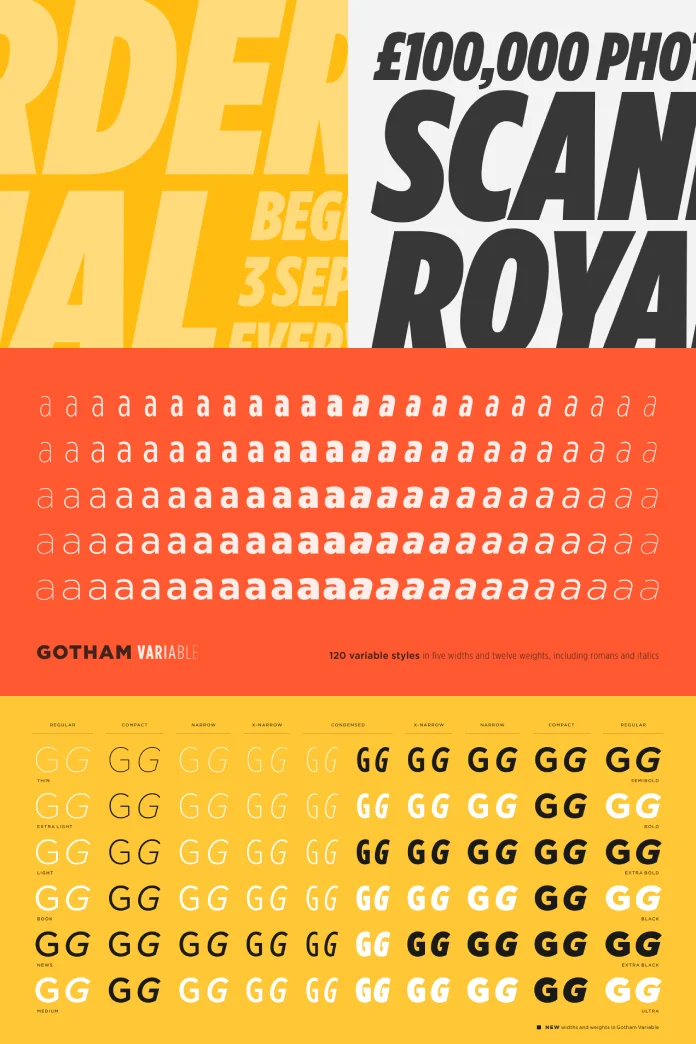
What Actually Changed When Gotham Became a Variable Font?
Standard Gotham ships as separate static files. Thin, Book, Medium, Bold, Black—each one a discrete file, each one paired again across four widths and matching italics. If you wanted a custom in-between weight, you were out of luck. You picked the closest preset and moved on.
Gotham Variable removes that constraint. Weight and width now live on continuous axes inside a single file, so a designer can dial in a value that sits precisely between two old presets instead of snapping to the nearest one. Hoefler & Co., now published under Monotype since the foundry joined the company, built this specifically to mark Gotham’s 25th anniversary, and the update goes well past a marketing refresh.
The release adds 54 new intermediate styles, including a new Compact width that didn’t exist in the static family at all. It also expands language support to Vietnamese and enhanced Cyrillic, which matters if you’re building brand systems that need to run in more than one script. Gotham Variable is available now through Monotype Fonts, Monotype Connect, and MyFonts.
One detail gets buried in most coverage: the variable upgrade doesn’t touch every Gotham subfamily. Gotham Office, Gotham Rounded, Gotham Rounded SSm, and Gotham SSm stay exactly as they were. If your project depends on one of those, Gotham Variable won’t help you.
Why Hoefler & Co. Built This Now
Gotham first appeared publicly on the January 2001 cover of GQ, commissioned as a typeface that felt modern and geometric without losing warmth. The Obama campaign adopted it in 2008, and from there it became something closer to civic infrastructure than a font choice. Twenty-five years later, Monotype used that anniversary as the trigger for the variable release, and the timing isn’t subtle marketing. It’s overdue. Variable fonts have been a mainstream browser and design-tool feature since around 2019. Plenty of newer geometric sans-serifs launched with variable support baked in from day one. Gotham, by contrast, had to be retrofitted, and that’s a genuinely harder engineering problem than starting from scratch. Sara Soskolne, now Executive Creative Director at Monotype and lead designer on this release, put it plainly: she and her team “tried to imagine what this typeface could become” without losing what made it Gotham in the first place. Elsewhere, she’s described the challenge more bluntly: reverse engineering variability into an existing and very widely used family is a trickier task than building new.
My honest read: Gotham Variable isn’t catching up so much as it’s finally applying variable-font technology to a typeface important enough that the retrofit was worth the effort. Most fonts don’t get that treatment. Gotham has earned it through sheer ubiquity.
My Hands-On Test: Setting Up Gotham Variable
The first thing I noticed was the file count. Where a full static Gotham license means juggling dozens of separate font files across weights, widths, and italics, Gotham Variable consolidates all of that into one streamlined file per width group. That’s not just tidier. It genuinely speeds up page load when you’re using Gotham Variable on the web, since the browser only fetches one file instead of requesting a new one every time a layout calls for a different weight.
Testing the Weight Axis in Figma and InDesign
In Figma, Gotham Variable behaves exactly the way you’d want a variable font to behave. A slider appears, and you can drag weight anywhere along the axis while watching the text update live. It’s genuinely satisfying to use, and it makes fine-tuning a headline against a specific layout far less fiddly than hunting through a dropdown of preset weights.
InDesign is a different story. Depending on your version, you still mostly work through named instances rather than a true live slider, so some of that continuous promise gets flattened back into presets anyway. It works, but it doesn’t feel like the same tool.
Testing the New Compact Width
Compact sits tighter than the old Extra Narrow setting, and it’s genuinely useful in dense layouts: navigation bars, data tables, anywhere horizontal space is at a premium. I ran a few headline tests at Compact, and the letterforms hold their proportions well. They don’t look artificially squeezed the way a manually condensed font usually does.
The Slider Precision Threshold: How Much Control Do You Actually Need?
Here’s a framework I want to introduce, because I think it’s the honest question nobody in the launch coverage is asking. Call it the Slider Precision Threshold: the point past which additional axis granularity in a variable font stops producing a visible design difference. In my own testing, nudging the Gotham Variable weight slider by a handful of points rarely changed anything a reader would notice. You need a meaningfully larger jump before the eye registers it. That doesn’t make the continuous axis pointless. It means the real value isn’t in micro-precision; it’s in landing exactly on the weight a layout needs without being boxed into six presets. The Slider Precision Threshold is where marketing language about “infinite expression” runs into the much more boring reality of how human vision actually works.
Who designed Gotham Variable?
Gotham was originally designed by Jonathan Hoefler and Tobias Frere-Jones, with contributions from Jesse Ragan and Sara Soskolne. Gotham Variable’s release was led by Sara Soskolne, now Executive Creative Director at Monotype.